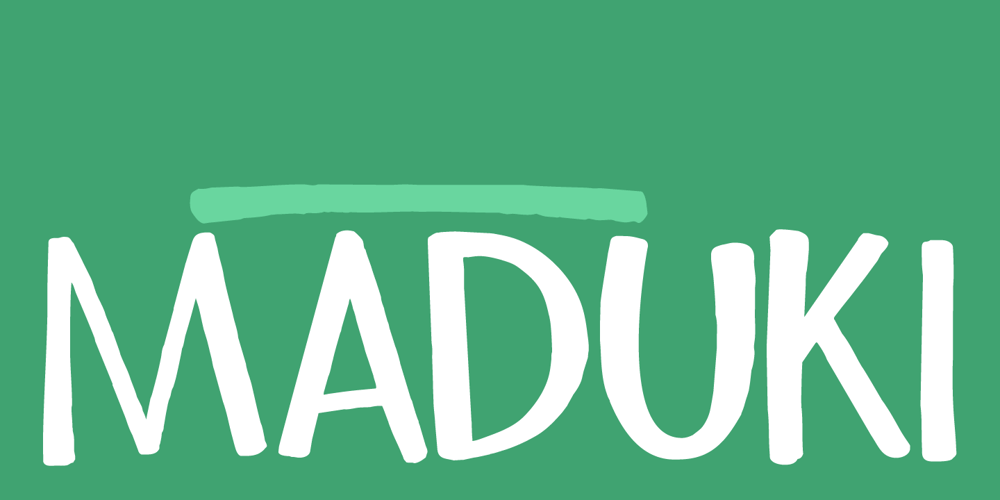
Maduki
Maduki font
Maduki Font Family was designed by David Kerkhoff and published by Hanoded. Maduki contains 2 styles and family package options. This time the font’s name is meaningless. Maduki doesn’t mean ‘cool’ in Swahili, nor does it mean ‘cup cake’ in Sranantongo. It is just a nice name. Maduki is a playful font, created with one of my 2 year old son’s marker pens (the ‘no stain, wash-out’ variety), a couple of cups of coffee and a whole bunch of ‘speculaas’ cookies. Now you’re wondering what speculaas is, right? I’ll tell you later – in a couple of fonts… Anyway, there’s not much meaningful to say about Maduki font. It is nice, it is cute and it comes with alternates!